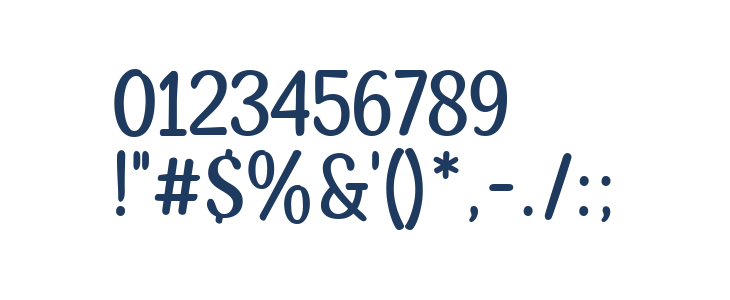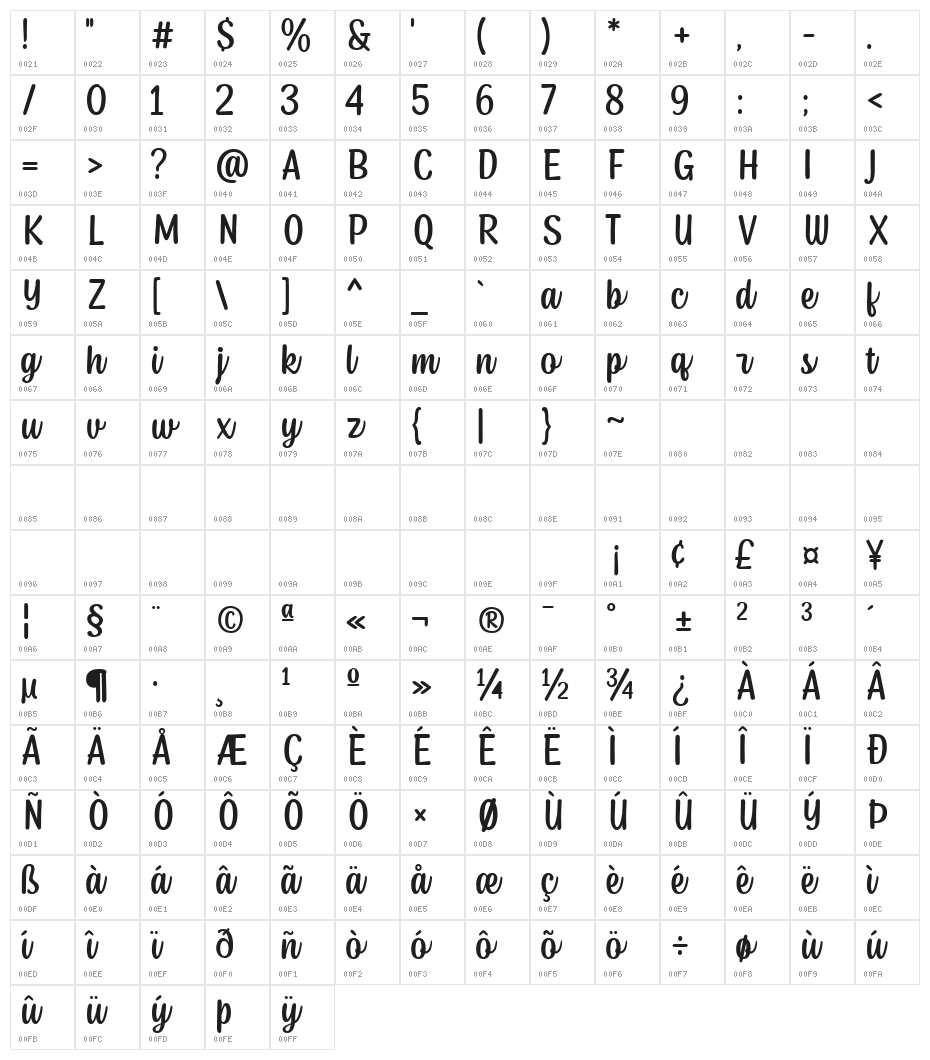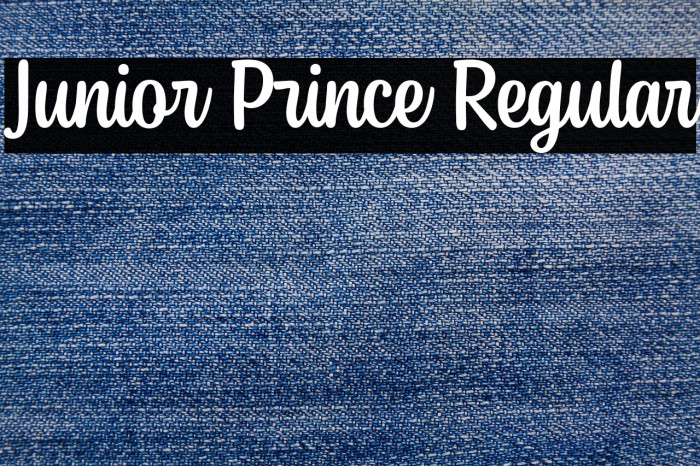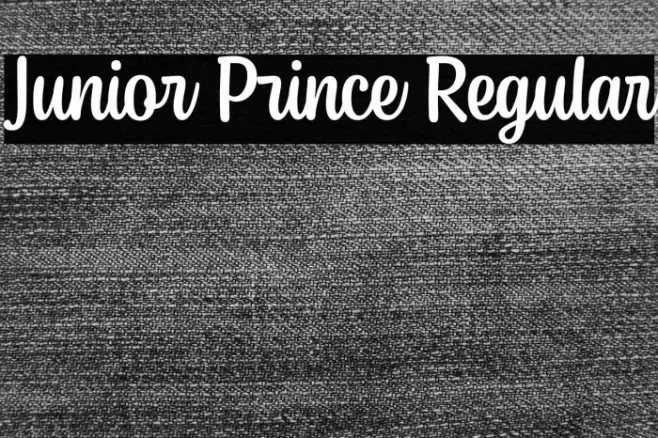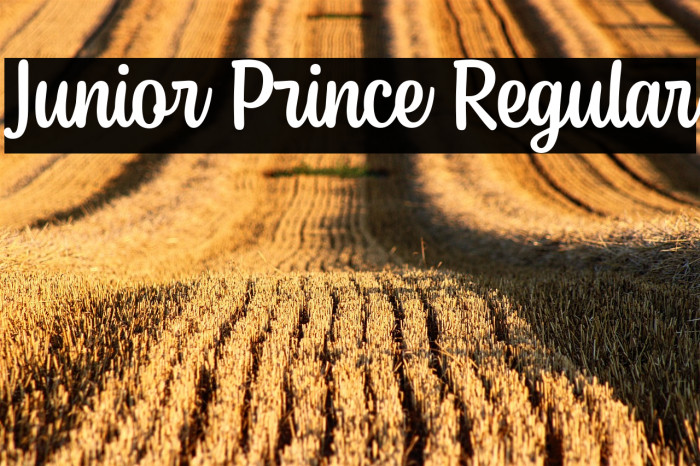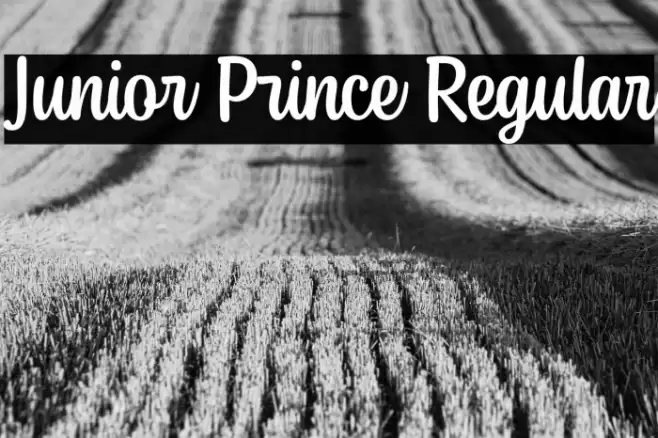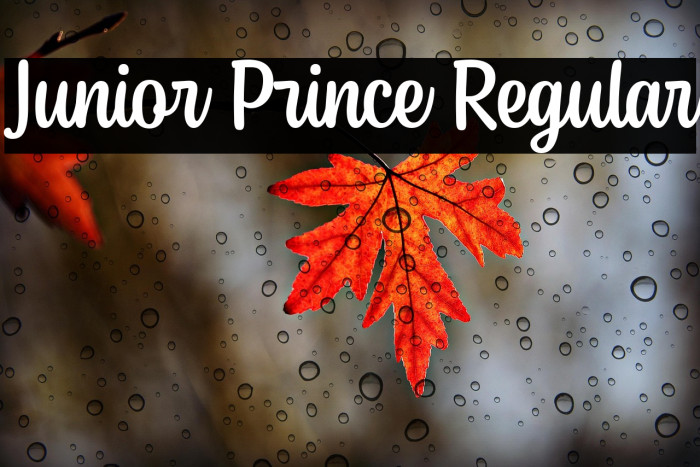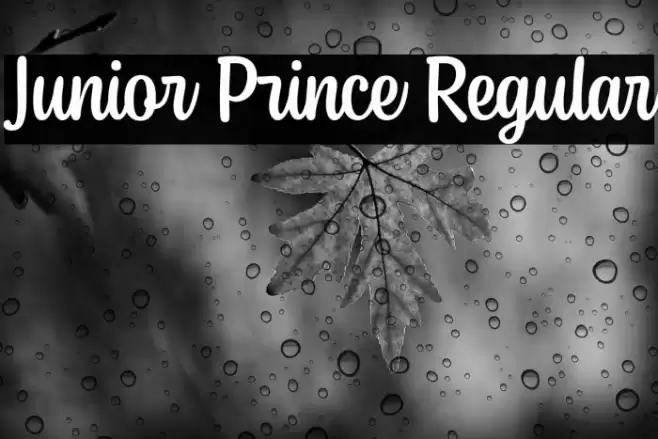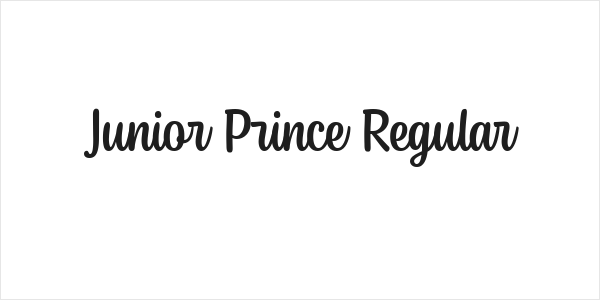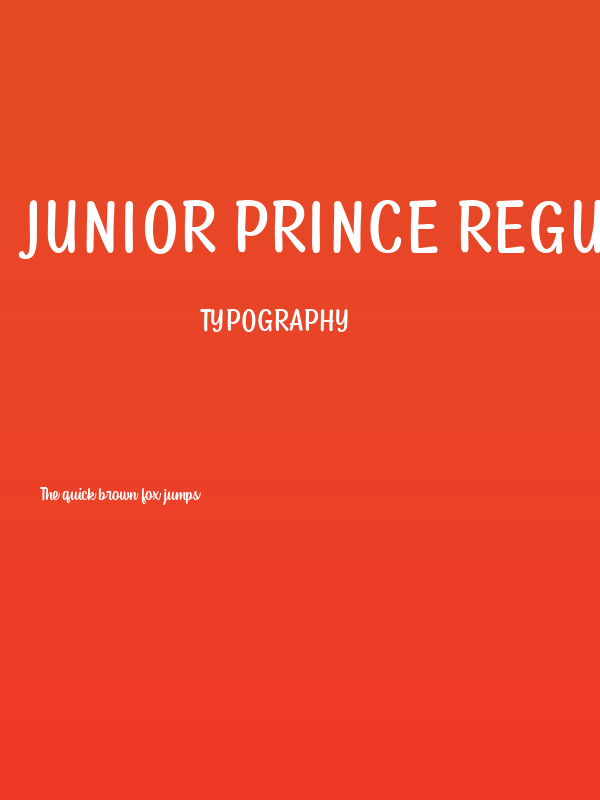
Junior Prince Regular Font
Junior Prince Regular Description
This playful and energetic font features a handwritten style with smooth, rounded edges and a casual, friendly appearance. The uppercase letters are bold and slightly condensed, while the lowercase letters exhibit a more fluid and connected script-like quality. The numbers and special characters maintain the same lively and approachable feel, making them ideal for creative and informal designs. The overall look is cohesive and balanced, with a consistent stroke width that adds to its readability and charm.
| Proposed Projects | Perfect for children's books, greeting cards, playful branding, and social media graphics. |